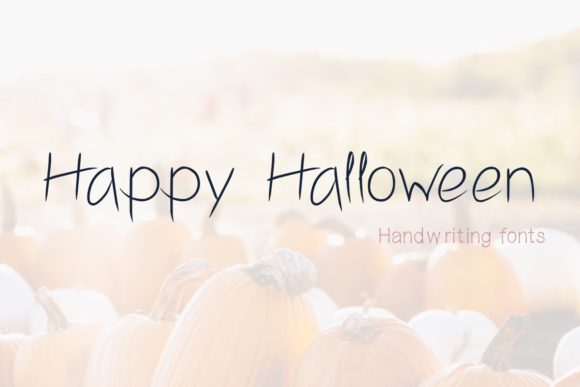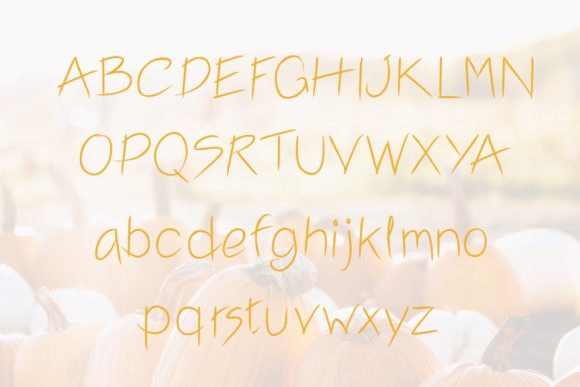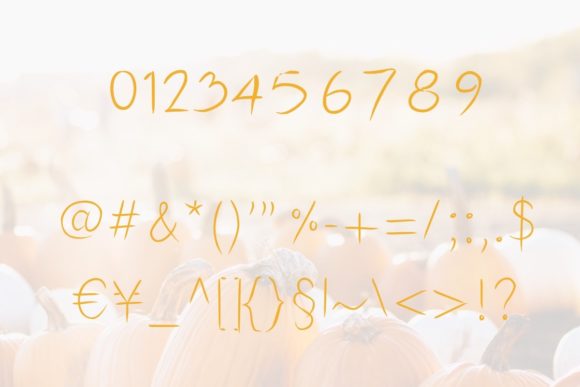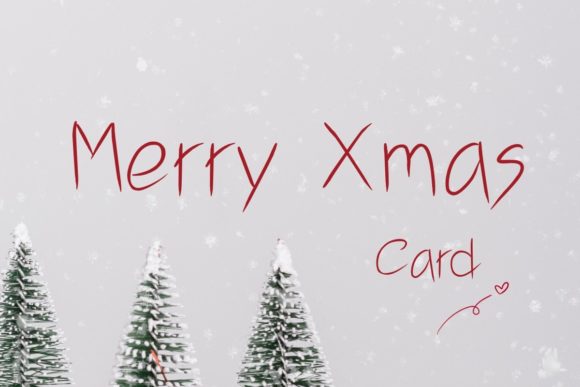
Happy Halloween Font
About Happy Halloween Font
Happy Halloween is a cute and simple lettered handwritten font that can be used for all chalkboard quotes or teaching material! Its authentic look will add a personal and realistic feel to your designs.